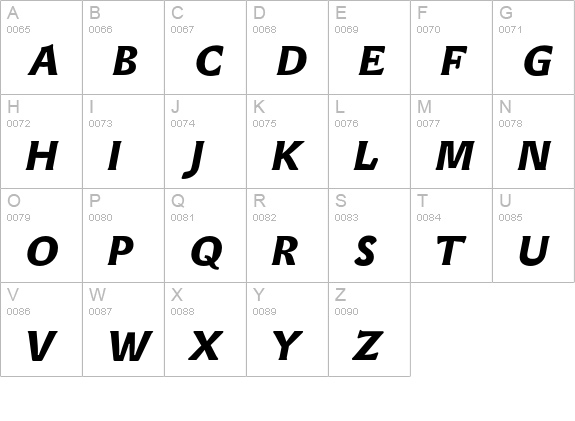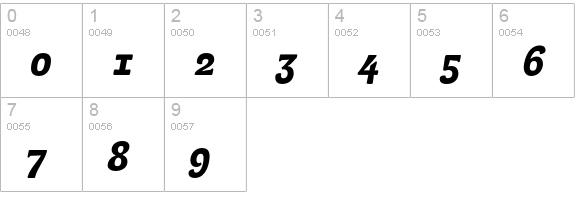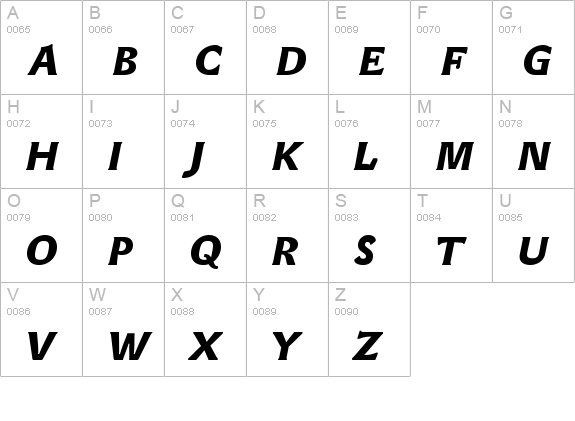
LexiconGothic-BoldItalic Font Details
Introducing LexiconGothic-BoldItalic, a striking and captivating font that effortlessly merges the essence of gothic aesthetics with a bold and italicized twist. This font exudes an air of mystery and sophistication, making it the perfect choice for projects that demand attention and intrigue. With its unique combination of boldness and italics, LexiconGothic-BoldItalic commands a sense of authority and elegance, making it an ideal choice for a wide range of creative ventures. Whether you're designing a logo, creating eye-catching headlines, or crafting a poster that demands to be noticed, this font will undoubtedly make a lasting impression. What sets LexiconGothic-BoldItalic apart is not just its captivating design, but also its accessibility. This font is freely available to download at FontsMarket.com, allowing designers and enthusiasts alike to effortlessly incorporate it into their projects without any hindrance. The freedom to access and utilize such a remarkable font without any constraints adds an extra layer of convenience and value to any creative endeavor. Designed with meticulous attention to detail, LexiconGothic-BoldItalic boasts clean lines, sharp edges, and a sense of symmetry that adds to its overall visual appeal. Its bold and italicized nature adds depth and character to any text, effortlessly elevating the design to new heights. So whether you're searching for a font that exudes strength and elegance, or one that adds a touch of gothic allure to your project, LexiconGothic-BoldItalic is the perfect choice. Download it freely from FontsMarket.com today, and let your creativity soar with this captivating and versatile font.